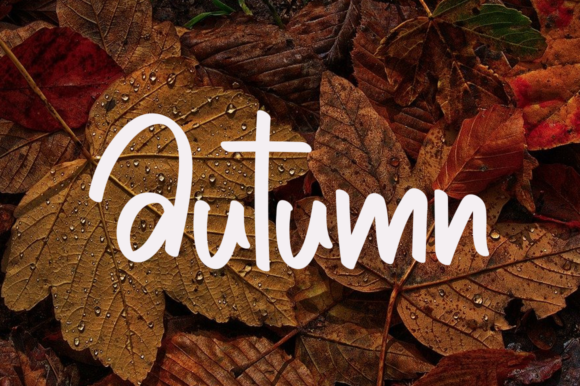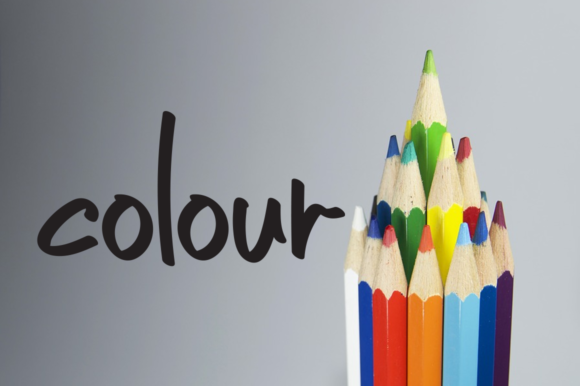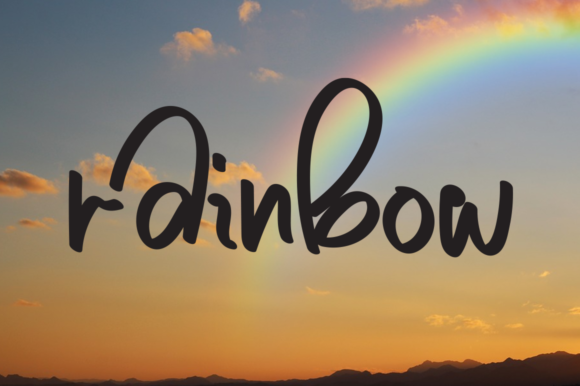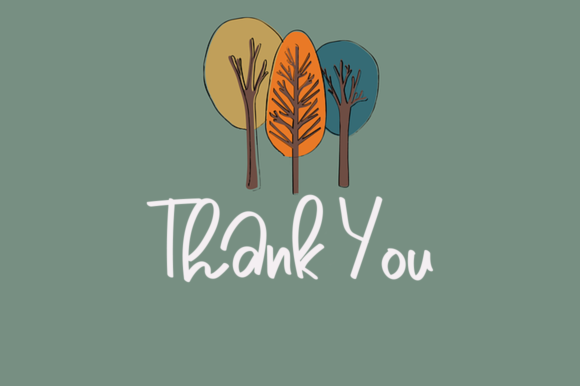
Summer Candy Font
Summer Candy is a delightful handwritten font that exudes elegance and beauty. With its dainty and thin style, it adds a touch of sophistication to any design project.
The delicate and graceful characters of Summer Candy make it a perfect choice for various creative projects. Whether you’re designing wedding invitations, branding materials, quotes, posters, packaging, or social media graphics, this font will elevate the overall look and feel of your designs.
The thin and refined strokes of Summer Candy give it a modern and trendy appearance. Its versatility allows it to be used in both formal and casual contexts, adding a touch of elegance and charm to your creations.
The beauty of Summer Candy lies in its ability to capture attention and create a memorable visual impact. Its handwritten style brings a sense of authenticity and personal touch to your designs, making them stand out from the crowd.
The font’s thin and dainty nature makes it particularly suitable for designs that require a delicate and refined aesthetic. Whether you’re creating wedding stationery, feminine branding materials, or elegant typography, Summer Candy will add a touch of grace and sophistication.
In summary, Summer Candy is a dainty, thin, and beautiful handwritten font that can elevate the look of any creation. Its delicate strokes and elegant style make it a versatile choice for a wide range of design projects. With Summer Candy, you can add a touch of sophistication and charm to your designs, creating a lasting impression on your audience.